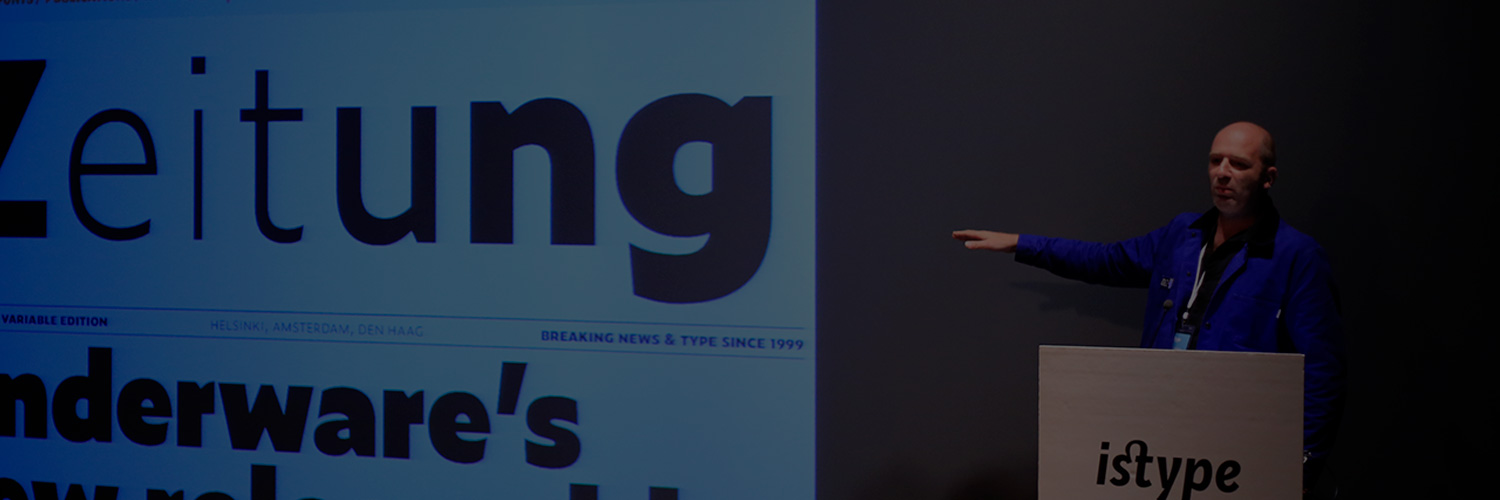
Typefaces behave differently in various conditions, and these circumstances provoke a wide spectrum of variation in their appearance and function. The inherent nature of “letter–making” lies in the subtleties of “form-making,” an exploratory creative process that generates new shapes with the purpose of forming a coherent system. We might then ask how different circumstances—of all sorts and scales—inspire variations to take shape in the production of typefaces.
In 2017, ISType is meeting under the theme of Variation. With the goal of providing an international gathering at which students, professionals and enthusiasts can share their ideas and inspire each other, ISType 2017 invites you to explore the subtleties that lie beneath type production. The theme Variation will revolve around the many interactions between practice, theory and history within the field of typography.